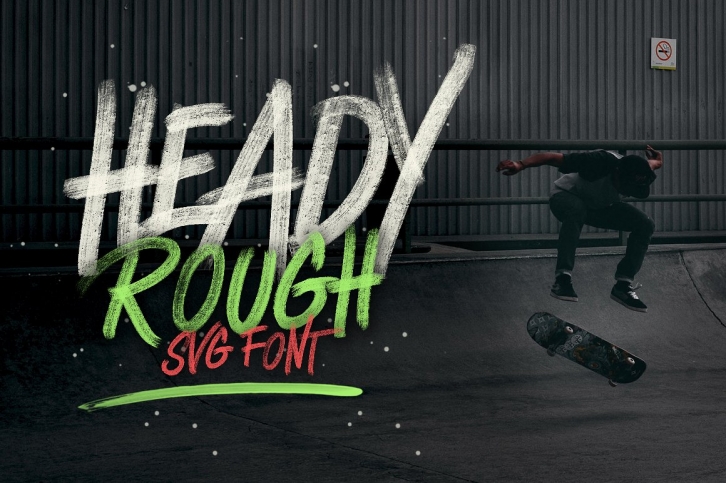
Heady Rough is an experimental and versatile font.
You will get a smooth regular version which works great everywhere/ It also includes a new OpenTypeSVG format (requires Photoshop CC 2017 or newer).
Heady Rough OpenTypeSVG was created by using high resolution brush stroke images with an incredible high resolution and embedding this in the font. It’s a next-level font with a hyper realistic brush.